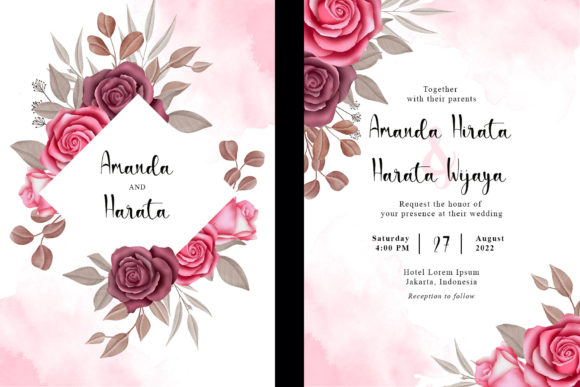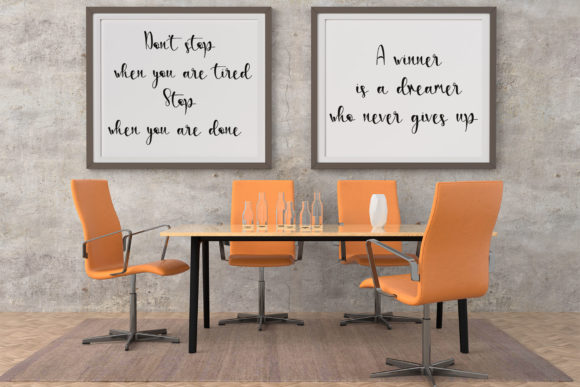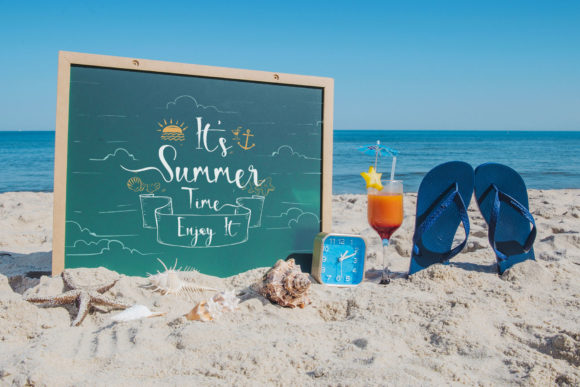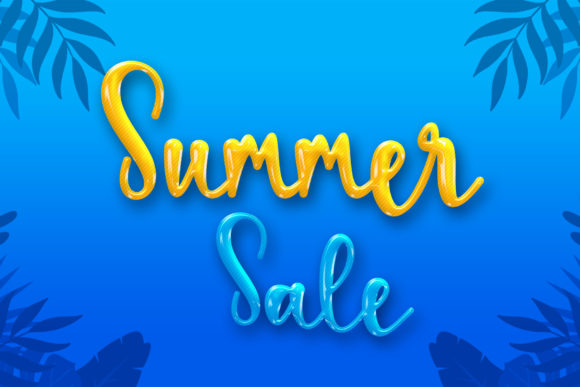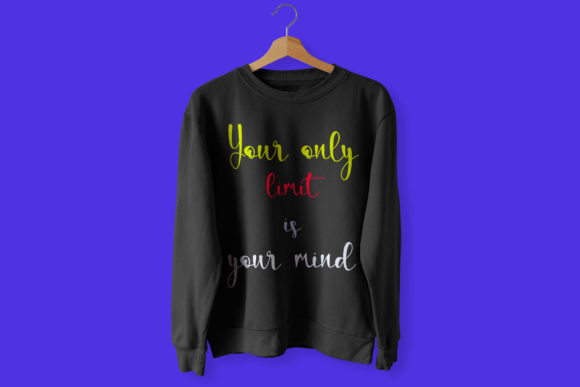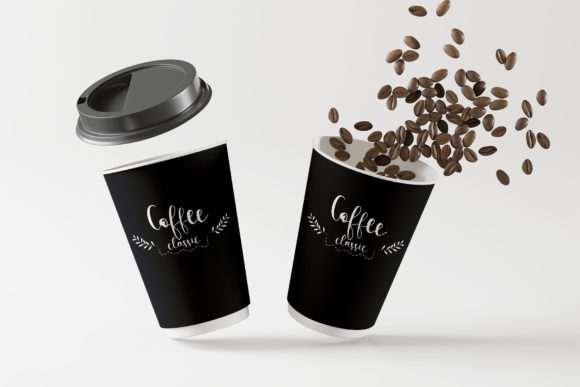
The Perfect Script: Unleashing the Elegance of Hillaya Font
There’s nothing quite like the thrill of discovering a new font that perfectly captures the essence of your creative vision. For designers, it’s a moment of pure joy – the moment when the words on the page come alive, and the typography takes center stage. It’s a moment that can make or break a project, and for many creatives, finding that perfect font is a lifelong quest.
Enter Hillaya Font, a chic and refined script font that embodies sophistication and elegance. This stunning font is designed to elevate your projects to new heights, with its stylish alternates and ligatures making it the perfect match for any design endeavor. With its PUA encoding, accessing all of the glyphs and swashes is a breeze, giving you the freedom to experiment and push the boundaries of your creativity.
Hillaya Font Key Features
- Font Family: Hillaya is a modern, elegant script font, ideal for various design projects.
- Unique Characteristics: Features a unique blend of elegance and sophistication, making it perfect for luxury brands, invitations, and high-end designs.
Honest Designer Review: Hillaya Font
Overall, I think Hillaya Font is a solid choice for designers looking for a modern and elegant script font. ✨ Here are some things that work well:
- Unique and stylish design that can add a touch of sophistication to any project.
- Wide range of languages supported, making it a great option for international projects.
- High-quality glyphs and ligatures that ensure smooth text flow.
- Comes in various weights and styles, giving designers flexibility in their designs.
- Some characters may not be as detailed as others, which can be noticeable in larger text sizes. ⚠️
- The font may not be as versatile as some other script fonts on the market, which can limit its use in certain projects.
- May not be suitable for projects that require a more bold or dramatic look.
Overall, I think Hillaya Font is a great choice for designers who want a elegant and modern script font. While it may have some limitations, its unique design and high-quality glyphs make it a solid option for a variety of projects.
The Hillaya Font is ideal for creating elegant, modern designs. It is commonly used in branding, typography, and digital art projects. Some specific use cases include:
- Creating logos and branding materials
- Designing digital art and illustrations
- Typographic experiments and creative writing
Comparison to Hillaya Font: Montserrat has a more geometric and minimalist feel compared to Hillaya Font, which has a more rounded and elegant look. Montserrat is also more suitable for digital applications, while Hillaya Font is better suited for print materials.
What is the character set and language support for Hillaya?
Hillaya includes a comprehensive character set that supports multiple languages, including Latin, Cyrillic, and Greek scripts. The font also includes a wide range of ligatures, alternates, and stylistic sets to enhance typographic versatility. You can view the detailed character map and language support information in the font’s documentation or on the font vendor’s website.